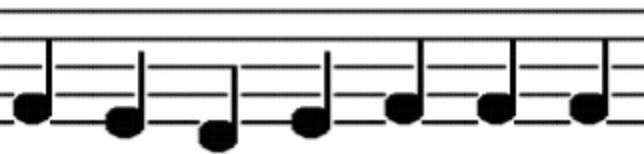
• This typeface converts your typing into musical notes. The idea is very simple and can create realistic looking sheet music. The font includes upper and lower case letters and numbers together with a treble-cleft with a time signature, a hash sign, dividing bars, an end bar and a double end bar.
Write your message on your word processor. You will need to use 48pt to have all the five staves showing up so keep your message short :)
Start each sentence with a treble-cleft which is the "&" key on your keyboard, it also adds a 4/4 time signature for authenticity. Upper case letters show as double notes, lower case and numbers as single notes. Numbers should be written with a comma "," between them eg:1,2,3 etc 10,11,12 etc 100,101,102. The comma inserts a short length of blank staves.
Now ...... comes the fun !  Count four notes and press the "!" key. This will place a barline vertically across the staves (the five horizontal lines on which the notes are written). Repeat this every 4 notes until you reach the end of the line then press the "." key. You must end with a full 4 note bar even if this leaves a space at the right margin. At the beginning of the next line press the "&" key to insert a new treble-cleft. Count 4 notes then the "!" key etc .... Repeat this process until you reach the end of your message, finish with a "."
Use this type face as a cipher to send secret messages which can be easily read by the recipient if they have this typeface on their computer. To anyone else this will appear to be sheet music.*° It can also be used to convert poems into a musical score, to rewrite the music of simple songs, word for word, or to compose original music. I am sure you will be able to find other uses also. Have fun ;)
Actually it won't appear as sheet music as I had hoped because the computer receiving the message will use its default font to print out the message if this font is not installed. That applies to all so called code fonts ... what a shame!
This is great. You'll find a few other efforts in this direction in the gallery: http://fontstruct.com/search?q=music. Maybe you should tag this e.g. with “Music” or ”Notation” so people can find it more easily. If you want to send it in an email or message, I guess you could make an image with it and send that.
I absolutely love this! See what this picture means.
Dear zellamsee, translation reads :
Great   idea
Great   font
Add the RESTS, ADD THE RESTSSSSSSSSSSSSS!!!!!!!!!!!!!!!!!!!!!!!!!!!!!!!!!!!
guess what song this is
mary had a little lamb